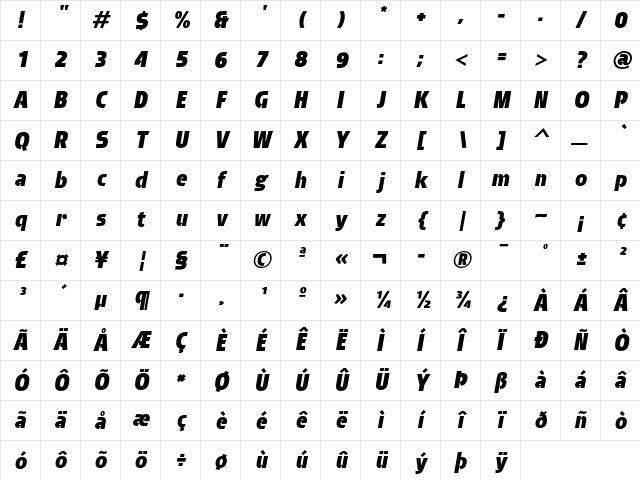
Brda LT Std Extra Bold Italic
Style: Extra Bold Italic
Designer: Franciszek Otto
Design Context for Brda LT Std
Brda LT Std is a composed and adaptable typeface that performs quietly and consistently across a wide range of design contexts. The slanted form adds forward momentum and visual energy. Its bold stroke weight gives it real presence on the page.
Pro Tip: Use Brda LT Std for emphasis, pull quotes, and subheadings where its slanted energy can add rhythm to the layout.